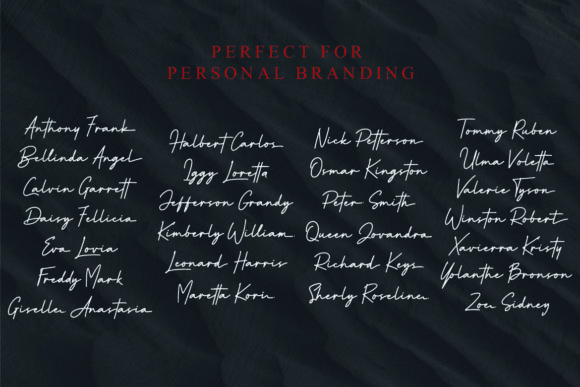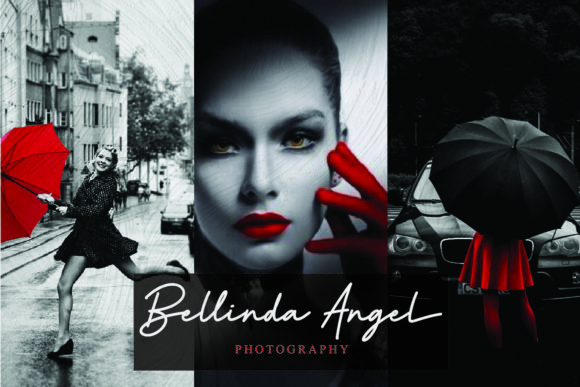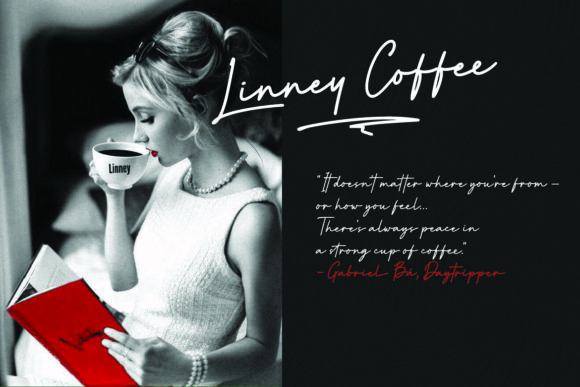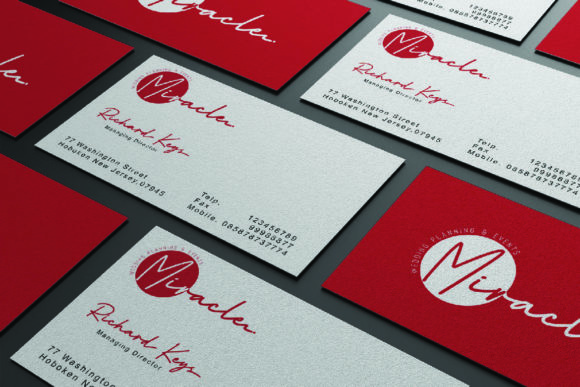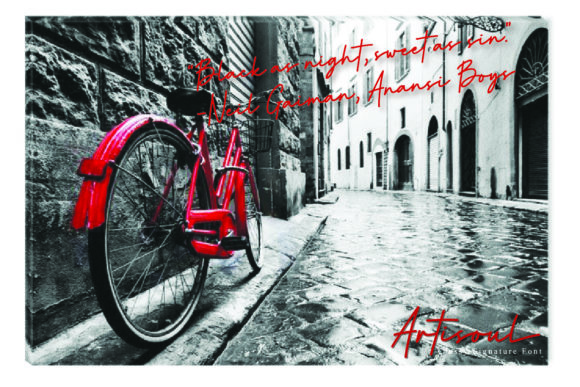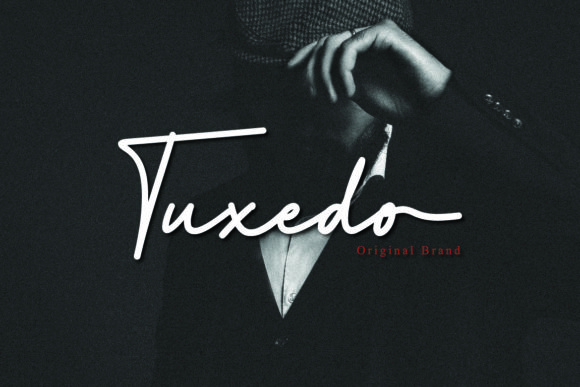
Unleash Your Creativity with Artisoul Font
Have you ever found yourself in a creative moment, surrounded by blank paper and a blank mind, yet an idea suddenly sparks and takes shape? It’s as if the universe is guiding your pen to create something truly magical. For many of us, this feeling is the essence of art and design.
That’s where Artisoul Font comes in – a beautiful and classy handwritten font that brings your crafting ideas to life. This ravishing script is designed to add an organic and smooth touch to any project, making it perfect for designers looking to elevate their work.
With Artisoul Font, you’ll have the tools to turn your ideas into stunning pieces of art. Whether you’re a seasoned designer or just starting out, this font is sure to inspire and delight. Its versatility and elegance make it a valuable addition to any design toolkit.
Artisoul Font Key Features
- Font Family: Artisoul Font is a modern script font that comes in 6 different styles, including Artisoul, Artisoul Brush, Artisoul Calligraphy, Artisoul Handwritten, Artisoul Script, and Artisoul Swashes.
- Unique Characteristics: The font features a unique blend of modern and classic elements, with flowing connections and elegant letterforms that make it perfect for creative and artistic applications.
Artisoul Font Review
Artisoul Font is a stunning script font that has captured my attention with its elegant, flowing design. ✨ The intricate details and swashes add a touch of sophistication, making it perfect for creative projects, such as invitations, posters, and even branding materials. ✨ The font’s high-quality design ensures that it looks great at various font sizes and styles, from formal to casual.
- ✨ Elegant and sophisticated design
- ✨ High-quality details and swashes
- ✨ Suitable for various font sizes and styles
- ✨ Perfect for creative projects, such as invitations, posters, and branding materials
However, I do have some concerns about the font’s limitations. ⚠️ The font may not be suitable for body text, as the letters can become quite ornate and overwhelming. Additionally, the font may not be compatible with all operating systems or devices, which could lead to display issues. ⚠️
- ⚠️ May not be suitable for body text due to ornate letters
- ⚠️ May not be compatible with all operating systems or devices
Overall, Artisoul Font is a beautiful and versatile script font that can elevate your creative projects. While it may have some limitations, its stunning design and high-quality details make it a great addition to any designer’s toolkit.
Tips for Getting the Most Out of Artisoul Font
Use Artisoul Font for creative and artistic projects, such as:
- Graphic design and branding
- Typography-based art and illustrations
Experiment with different font sizes, colors, and styles to add depth and visual interest to your designs.